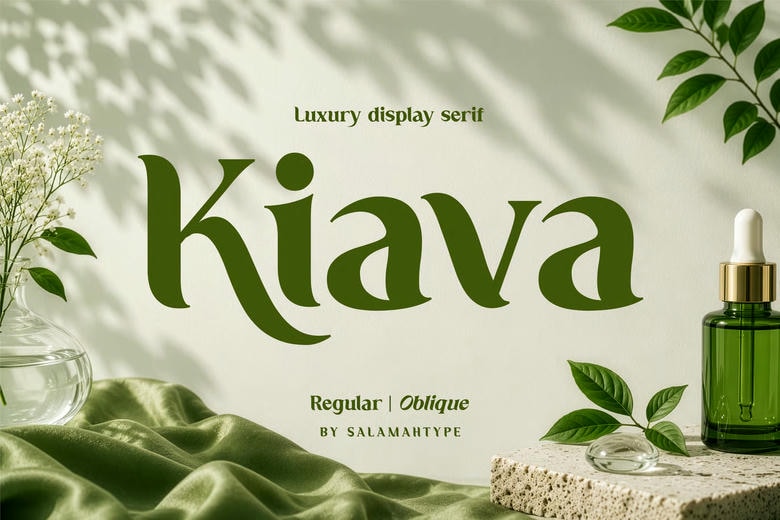
Kiava Font
Kiava is a luxury display serif font with elegant curves and stylish details. It gives your projects a modern, sophisticated feel and works well for logos, beauty brands, perfume packaging, fashion editorials, wedding invitations, social media, and more.
Kiava comes in Regular and Oblique styles, includes beautiful ligatures, and supports multiple languages. Its soft, classy look helps your designs stand out.
Kiava Serif Font